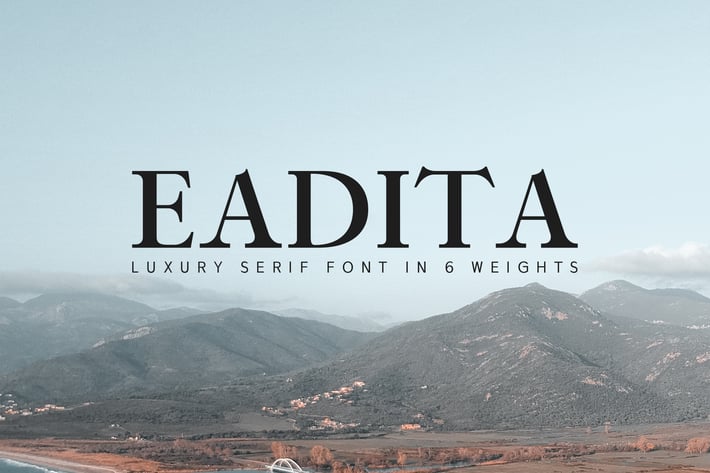
Eadita Luxury Serif Font Family
Eadita is a brand new luxury rounded serif font family with wide choice of weights. It includes all basic glyph with multilingual support. Eadita can be used for logo, greeting cards, posters, branding, name card, stationary, design title, blog header, quotes, typography, headlines, packaging, presentations, titles, magazines, headings, web layouts, advertising, invitations, packaging design, books, and nearly any creative design.
- Font Weight: Regular, Italic, Round, Round Italic, Bold and Bold Italic
- Uppercase Letters
- Lowercase Letters
- Non English Characters ( Latin Supplement + Latin Extended A)